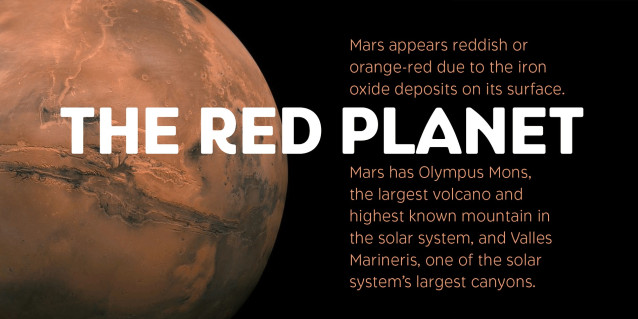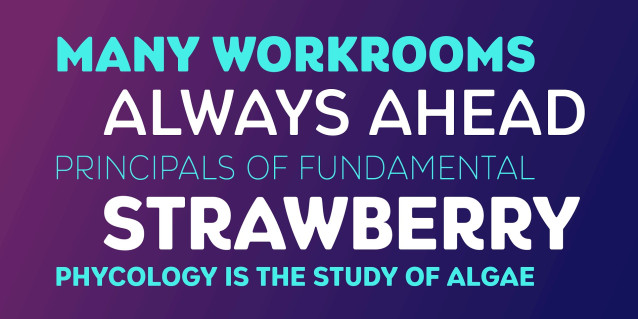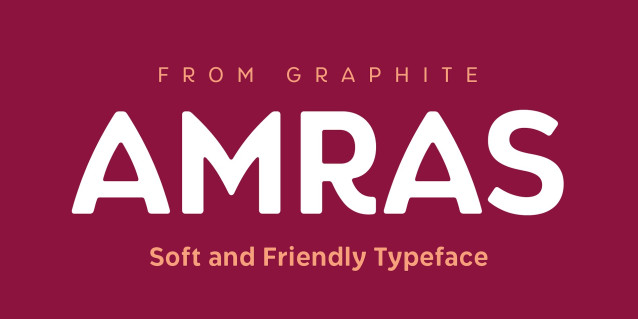
Amras Font Family
Amras Font Family —where clean design meets soft edges and rounded contours. This modern, soft hearted sans serif brings warmth and approachability to any project, from playful branding to user-friendly interfaces. Whether you’re crafting logos, packaging, branding or digital content, Amras adds just the right touch of charm and clarity.
A contemporary font family of eight weights, Amras is designed to strike the perfect balance between professionalism and playfulness. With its gently curved edges and geometric structure, it offers exceptional legibility while maintaining a friendly, inviting tone.
Key features:
Rounded terminals for a soft, modern aesthetic.
Clean, minimalist letterforms suitable for print and digital.
Versatile weight range for bold headlines and subtle body text.
Supports multilingual characters and OpenType features like oldstyle figures.
Optimized for web, mobile, and high-resolution screens